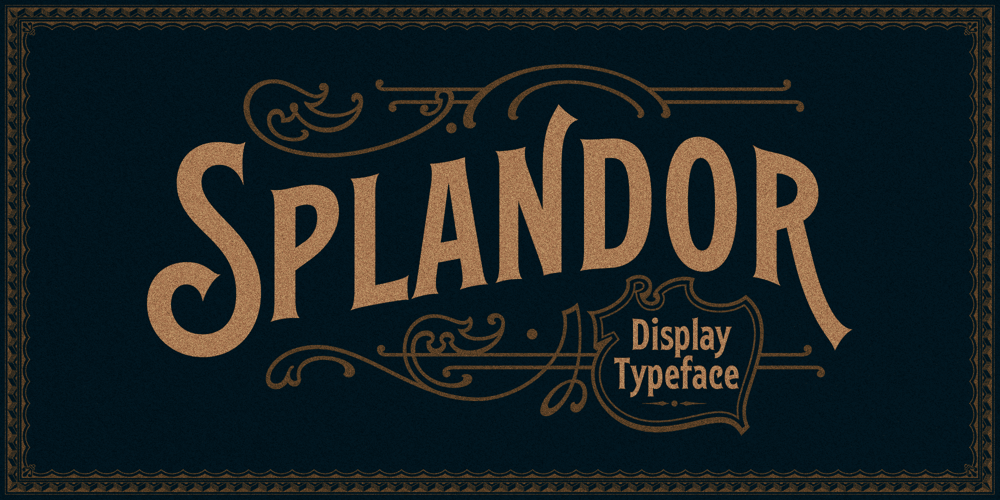
EFCO Splandor Font Family was designed by Ilham Herry and published by Ilham Herry. EFCO Splandor contains 2 styles and family package options. this is a revival of the Splandor font which was released in 2014. many have changed in this latest version, such as vector quality, available with lowercase, and various Opentype Features, such as Stylistic set, ligature, contextual alternate, languages support, and new ornaments.This font was created for display needs, such as headings, signage, posters, t-shirts, covers, labels, logos, etcSplandor PDF Specimen